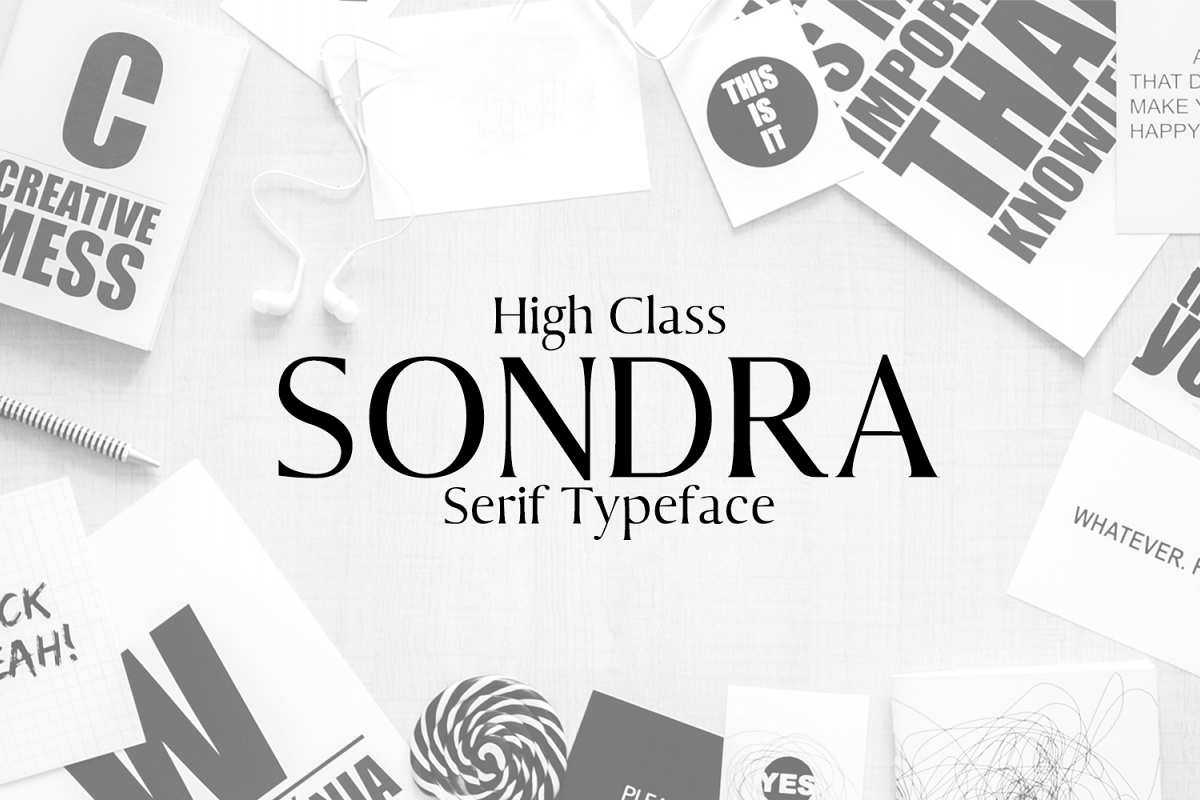
Sondra Serif Typeface
Sondra Serif Typeface is minimalist and beautiful serif font family of 6 weights and it features unique and modern serif look and feel.Perfect for gorgeous logos & titles, layouts & content, or large & small scale, It looks gorgeous in all caps with a wide-set spacing if you want to try a classy look, or beautiful on its own in capital and lowercase letters for something completely timeless.Included Features:
• Font Weight: Regular, Light, Thin, Outline and Bold
• Extras: Uppercase Multilingual Letters, Lowercase Multilingual Letters, Numbers & Punctuation + Alternatives.